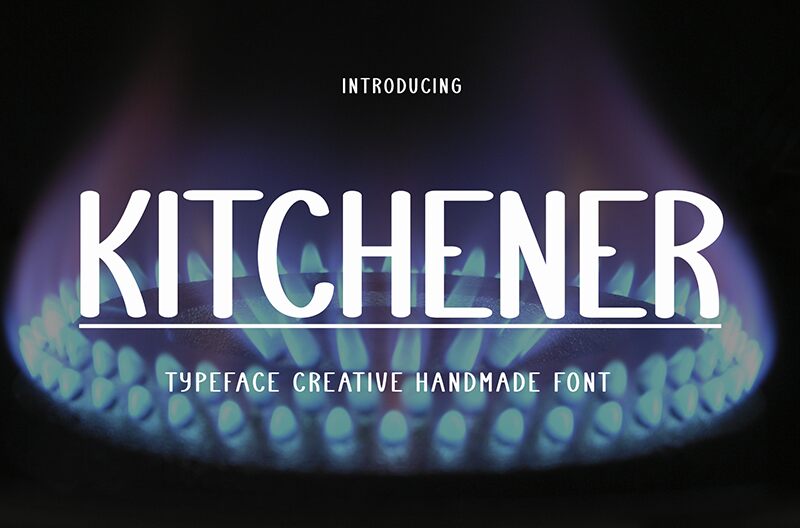
Kitchener
Kitchener font by Andi Moz is a condensed, handwritten font with a delightful modern charm. It features rounded edges and clean lines, making it approachable for all sorts of creative projects. Its casual nature shows off some retro influence that gives nostalgic vibes, reminiscent of the 80s. Modern in look but unique with its thin tilted characters, Kitchener has an attitude that appeals to contemporary crowds.
Give this free handwritten font a shot at branding projects including logo creation, book cover design, and publication application; longer form texts in novels or comics will shine. Websites with blogs can make dazzling headers or subheaders with it as well; printed items like business cards finally round up use cases of joining letters ideal for agencies.